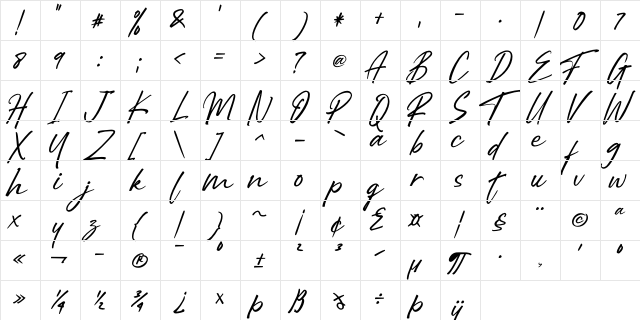
Right Female Regular
| Designer | Sarwo Edhi Prayitno |
Design Context for Right Female Typeface
Right Female is a composed and adaptable typeface that performs quietly and consistently across a wide range of design contexts.